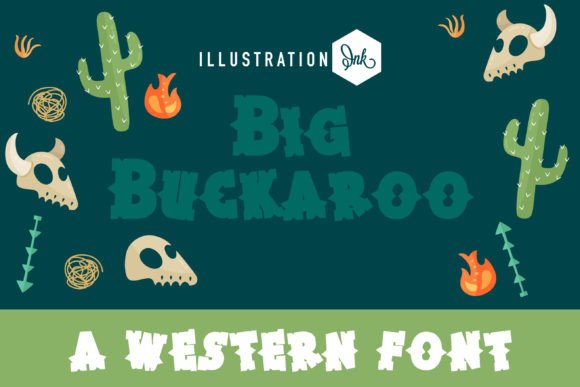
Big Buckaroo Font: The Ultimate Slab Serif Font for Creative Projects
Are you looking for a font that can elevate your creative projects to new heights? Look no further than the Big Buckaroo font. This incredibly unique slab serif font is masterfully designed to become a true favorite among designers, and its versatility makes it perfect for a wide range of applications.
What Makes Big Buckaroo Font So Special?
Big Buckaroo is more than just a font – it’s a design statement. Its slab serif design gives it a distinctive look that’s both modern and nostalgic, making it perfect for projects that require a touch of sophistication and elegance. Here are some of the key features that make Big Buckaroo font stand out:
- Unique Slab Serif Design: Big Buckaroo’s slab serif design sets it apart from other fonts. Its bold, block-like serifs give it a rugged, yet refined look that’s perfect for headlines, titles, and other display text.
- Highly Legible: Despite its bold design, Big Buckaroo is highly legible, even at small sizes. This makes it perfect for body text, captions, and other applications where readability is crucial.
- Versatile: Big Buckaroo is a versatile font that can be used in a wide range of applications, from posters and flyers to digital interfaces and branding materials.
- Easy to Pair: Big Buckaroo pairs well with a variety of fonts, making it easy to create harmonious font combinations that elevate your designs.
How to Use Big Buckaroo Font in Your Creative Projects
Big Buckaroo font is perfect for a wide range of creative projects, including:
- Posters and Flyers: Big Buckaroo’s bold design makes it perfect for headlines and titles, and its legibility ensures that your message gets across clearly.
- Branding and Logo Design: Big Buckaroo’s unique design makes it a great choice for logos and branding materials, where you want to make a lasting impression.
- Digital Interfaces: Big Buckaroo’s clean design and high legibility make it perfect for digital interfaces, such as mobile apps, websites, and software.
- Advertising and Marketing: Big Buckaroo’s bold design and versatility make it perfect for advertising and marketing materials, such as billboards, magazine ads, and social media graphics.
Design Tips for Using Big Buckaroo Font
Here are some design tips to help you get the most out of Big Buckaroo font:
- Use it as a Headline Font: Big Buckaroo’s bold design makes it perfect for headlines and titles. Use it to grab attention and draw the reader in.
- Pair it with a Sans Serif Font: Big Buckaroo pairs well with sans serif fonts, such as Arial, Helvetica, or Open Sans. Use this combination to create harmonious font pairings.
- Experiment with Colors: Big Buckaroo’s bold design makes it perfect for use with bright, bold colors. Experiment with different color combinations to find the one that works best for your project.
- Don’t be Afraid to Mix and Match: Big Buckaroo is a versatile font that can be used in a wide range of applications. Don’t be afraid to mix and match it with other fonts and design elements to create a unique look.
The Benefits of Using Big Buckaroo Font
Here are some of the benefits of using Big Buckaroo font in your creative projects:
- Instant Recognition: Big Buckaroo’s unique design makes it instantly recognizable. Use it to create a lasting impression and build brand recognition.
- Improved Legibility: Big Buckaroo’s high legibility ensures that your message gets across clearly, even at small sizes.
- Increased Versatility: Big Buckaroo is a versatile font that can be used in a wide range of applications. Use it to create a consistent look across multiple platforms.
- Unique Design: Big Buckaroo’s unique design sets it apart from other fonts. Use it to add a touch of sophistication and elegance to your designs.
In conclusion, Big Buckaroo font is an incredibly unique slab serif font that’s perfect for creative projects. Its bold design, high legibility, and versatility make it a great choice for a wide range of applications. By following the design tips outlined above, you can get the most out of Big Buckaroo font and create stunning designs that elevate your creative projects to new heights.